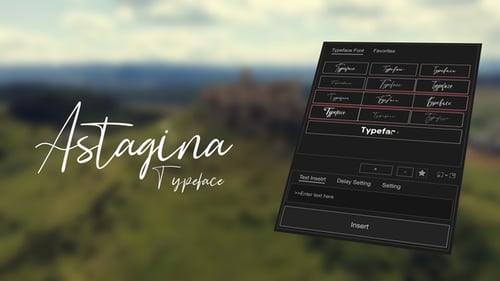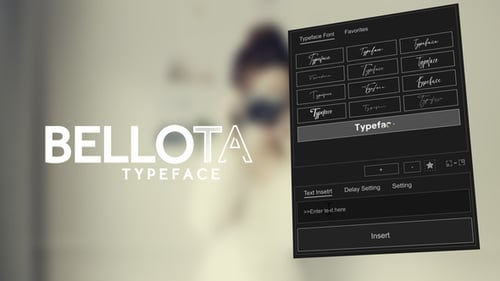
Elegant Script Typeface Handwriting Reveal Animation
Unveil text with a touch of personal elegance using this dynamic script typeface animation. The template features a beautifully animated handwritten signature style that smoothly draws each character onto the screen, perfect for adding a sophisticated and custom feel to any project. Ideal for wedding films, personal vlogs, social media intros, creative presentations, or brand endorsements seeking a unique, artisanal aesthetic. This easy-to-use motion graphic allows for quick customization, enabling users to effortlessly input their own text and choose from various elegant signature variations. Adjust colors, speed, and other parameters to perfectly match your visual identity and enhance your content with refined typographic flair.